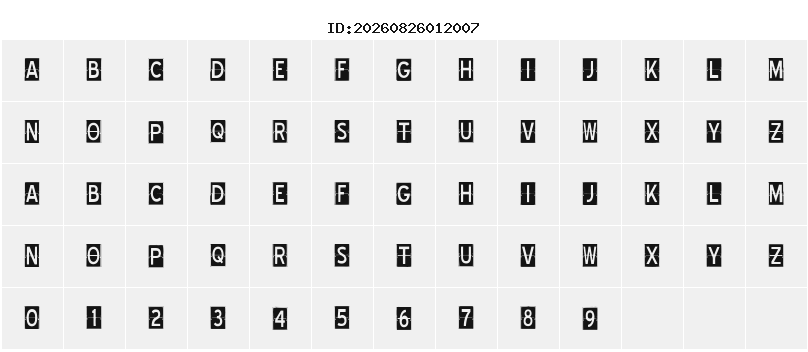
• Font Name: SCOREBOARD
• Designer: Woodcutter Manero
About SCOREBOARD.ttf
SCOREBOARD.ttf is a modern, elegant sans-serif font designed for ultimate readability and visual harmony. Perfect for branding, headlines, web design, and print materials.